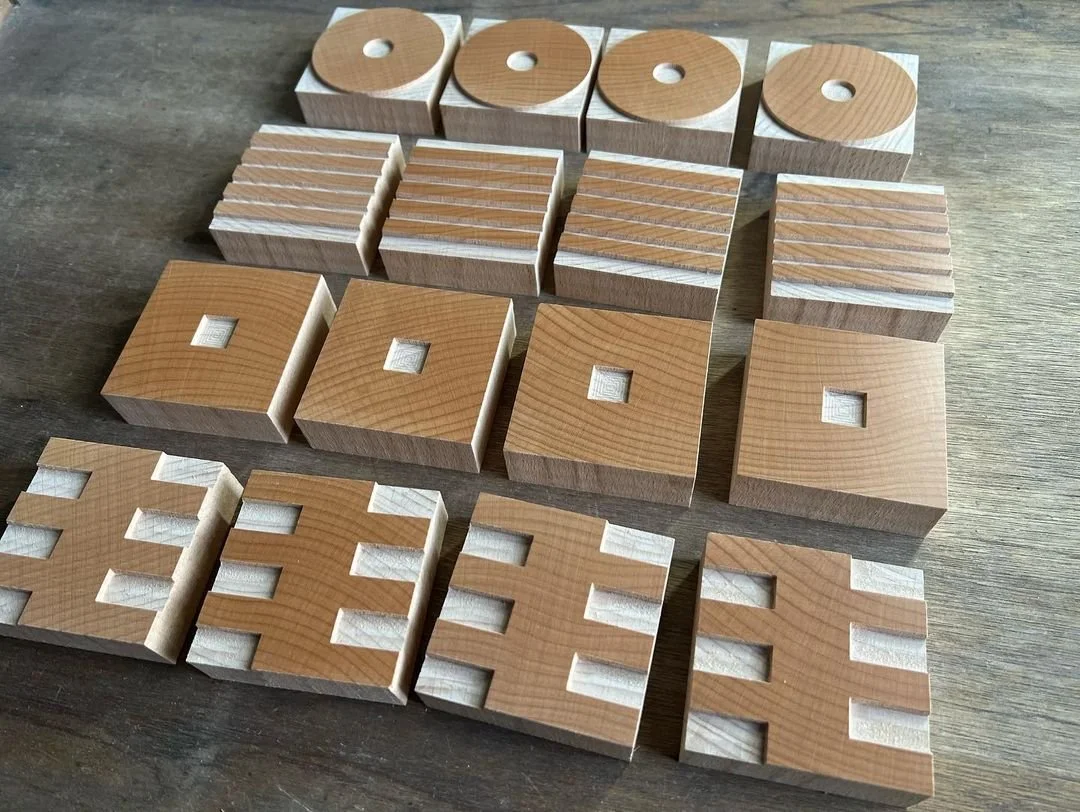
Formpattern designed by Donald Tarallo
FormPattern is an easy to use set of shapes with endless possibilities. It is excellent for making patterned lines, areas, and frames. Many of the shapes can also be used as letters or can be combined to create them. The density of the patterns can be adjusted with spacing. The glyphs are cut with no side bearings so the shapes will touch and naturally flow into patterns.
Use this font to add visual interest to books, intro marks to chapters, paragraph separators, end marks to articles, patterns for posters, greeting cards, illustrations, invitations, and wrapping paper. The imaginative designer will find no shortage of ways to use this clean modular font.
FormPattern began in sketches while observing geometric patterned mosaics in the cities of Bari and Palermo in the south of Italy. These mosaics were found in Catholic churches, yet their creation was informed by different cultures and spiritual traditions that had influence in Italy over the centuries. They represent not only the intended purposes of the Church, but also due to their connection to the art of Islam they symbolize the beautiful concept of harmony between god, humans, and the infinite expressed in geometry. These ideas are represented through continuous repetitive patterns made possible through underlying structural planning.
FormPattern in wood is made exclusively by typehighdesign and designed by Donald Tarallo -